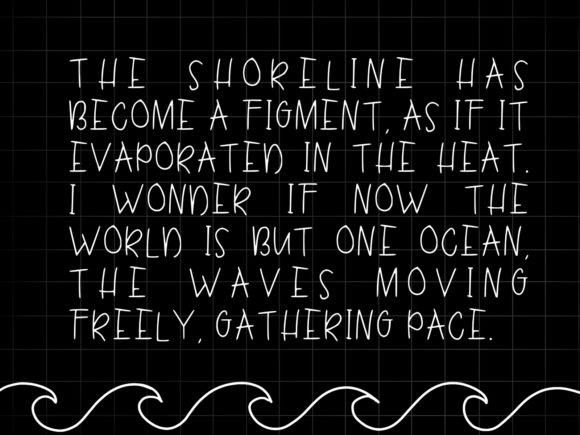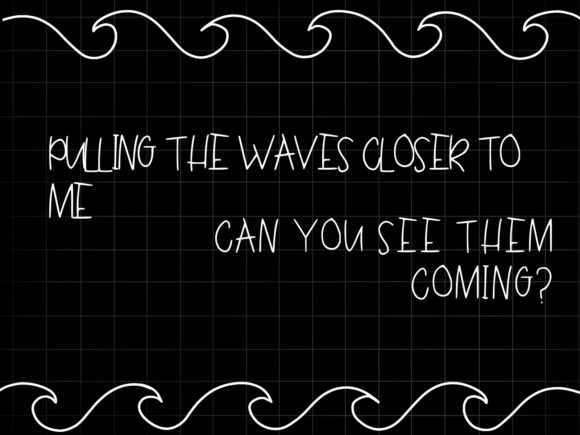
Hopeless Font
About Hopeless Font
Hopeless is a simple, friendly and playful handwritten font. It is suitable for any branding, product packaging, invitation, quote, t-shirt, label, poster, logo that you wish to develop.